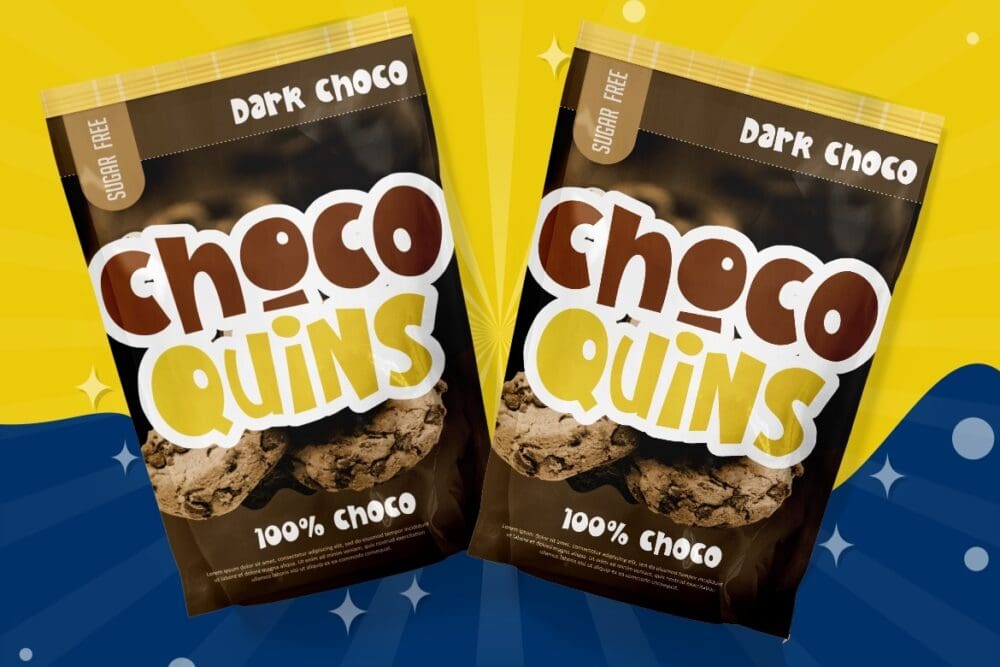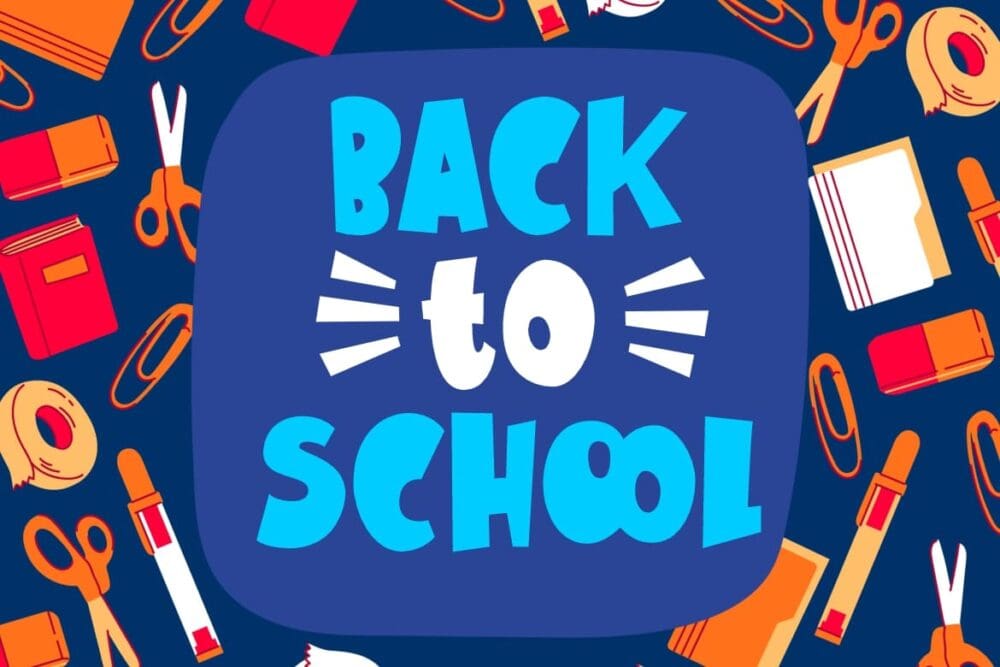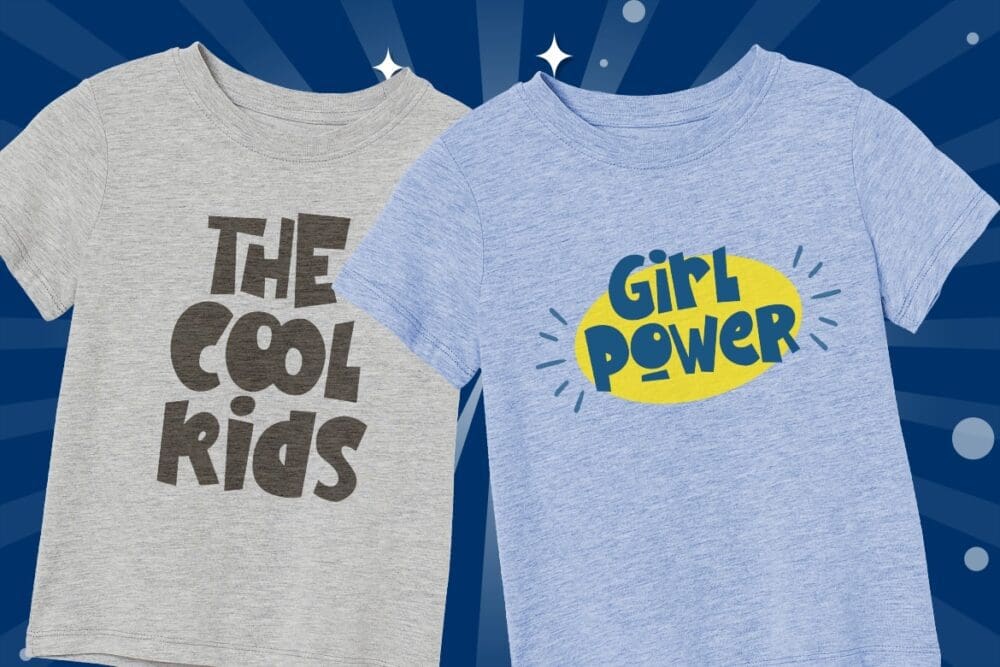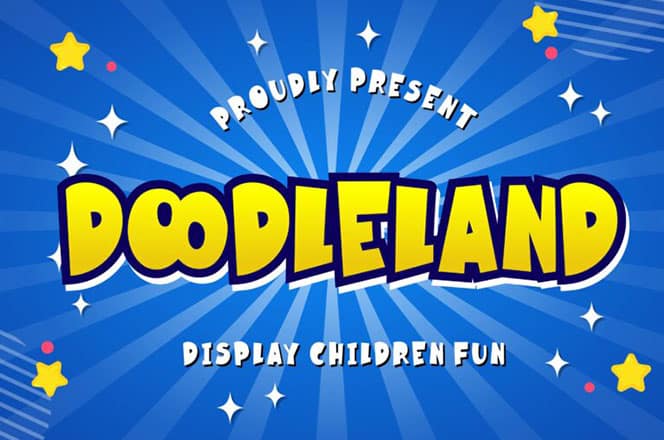
Doodleland Display Font
Doodleland Display Font which perfects for kindergarten occasion and children event. Doodleland is perfect for branding projects, logos, designs, social media posts, advertisements, product designs, and more projects.